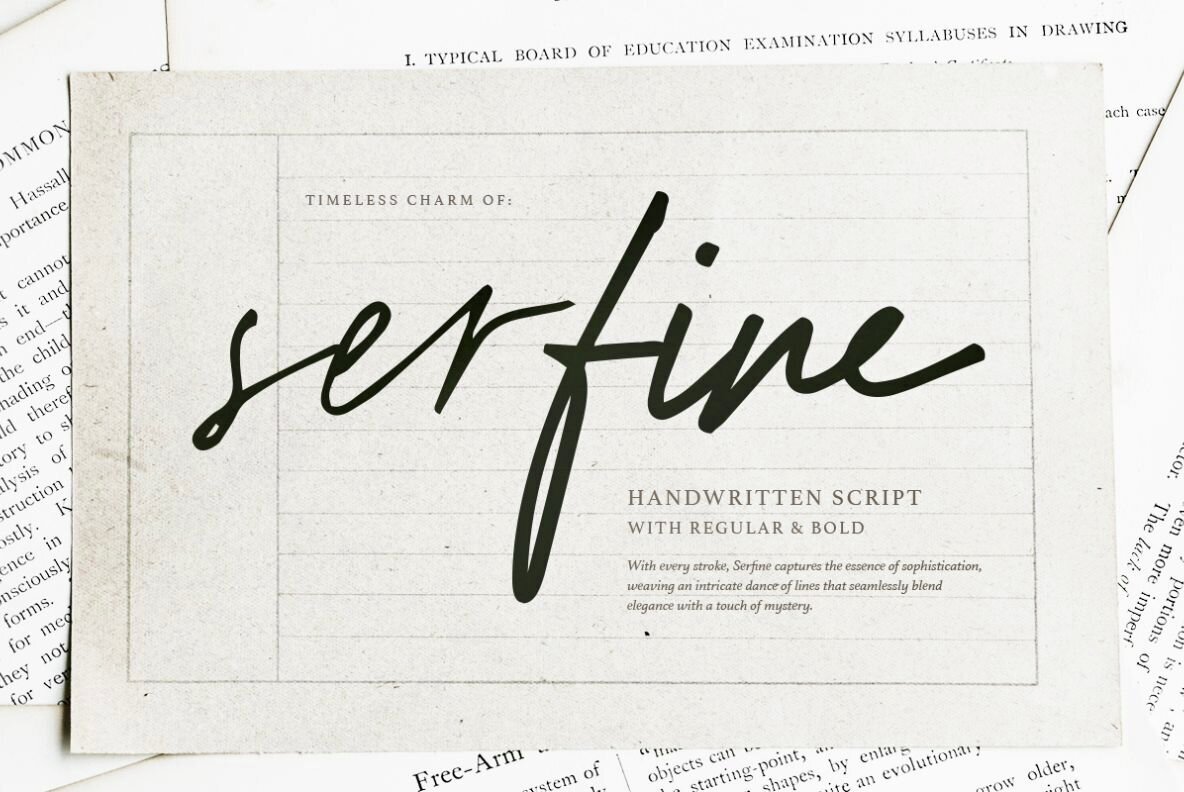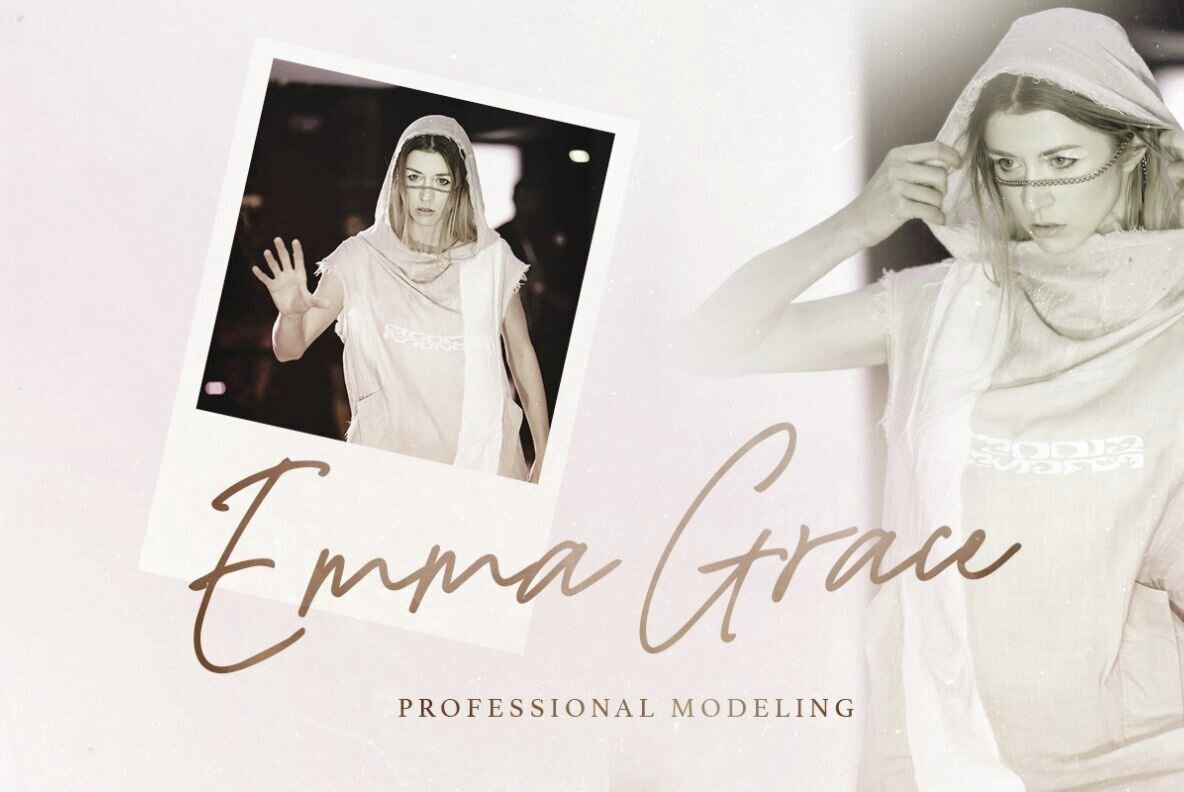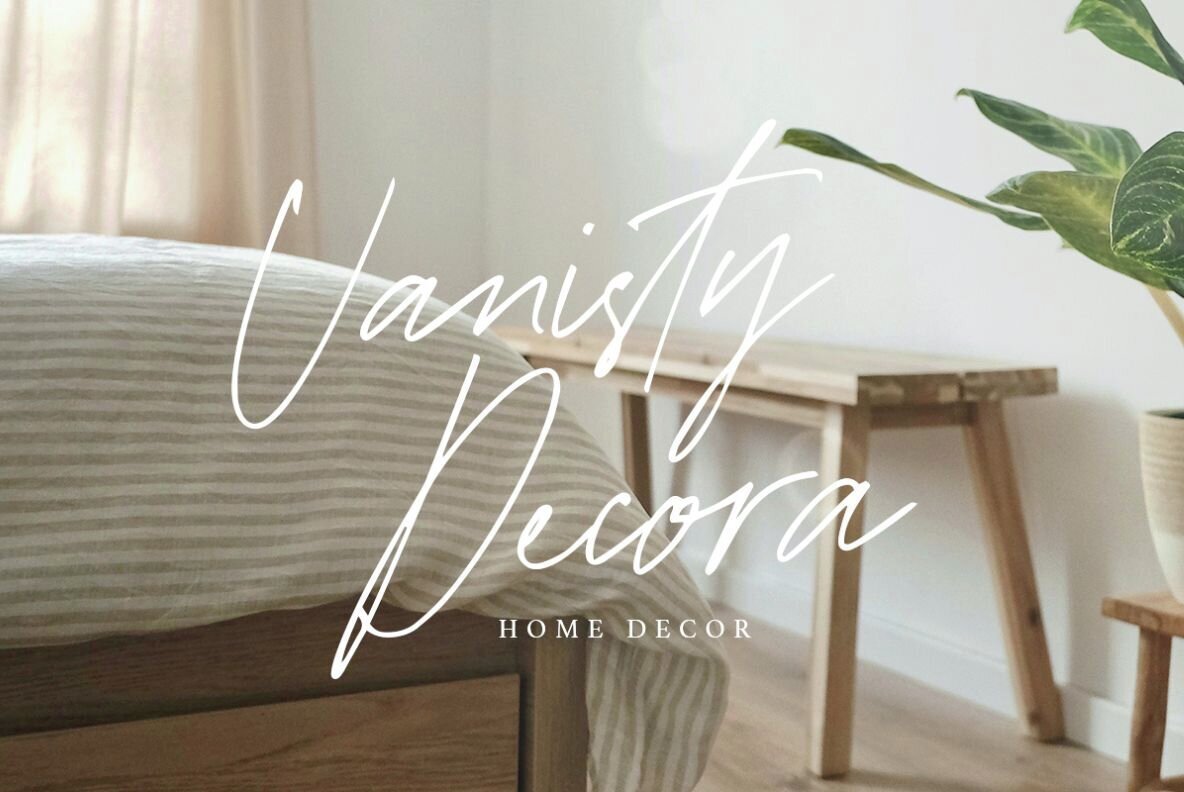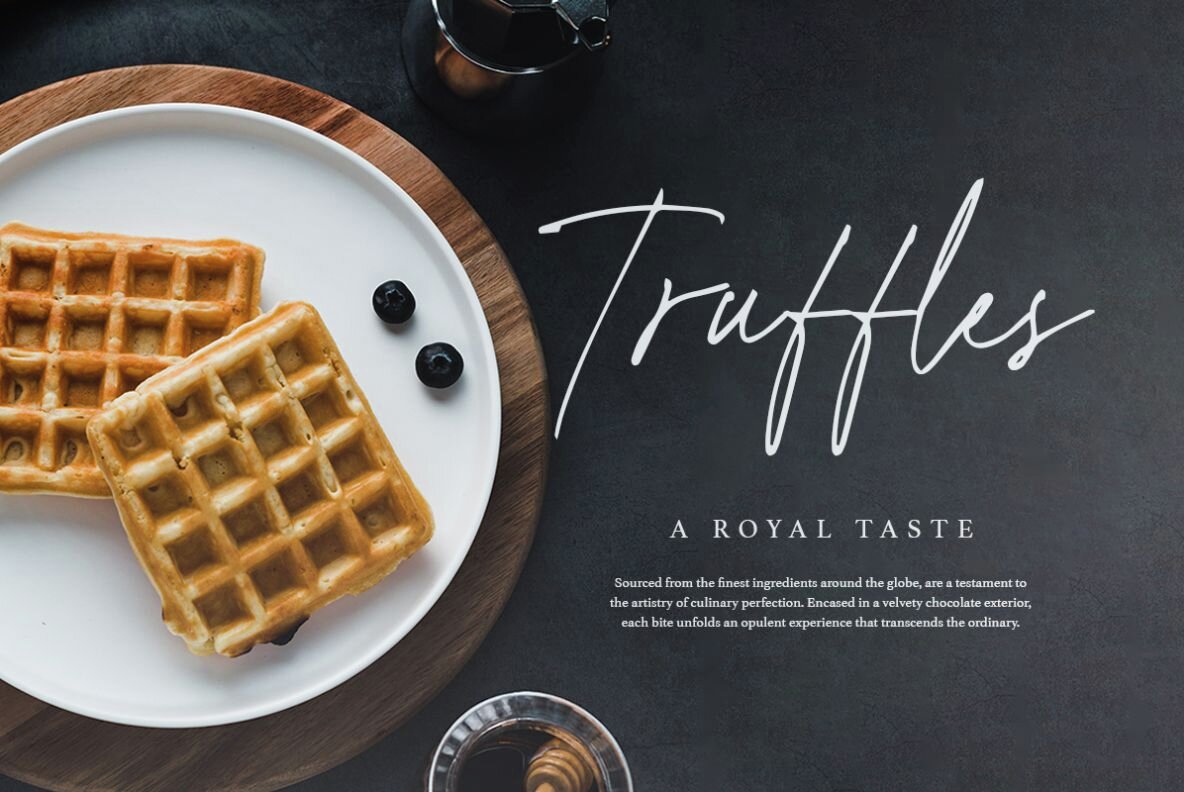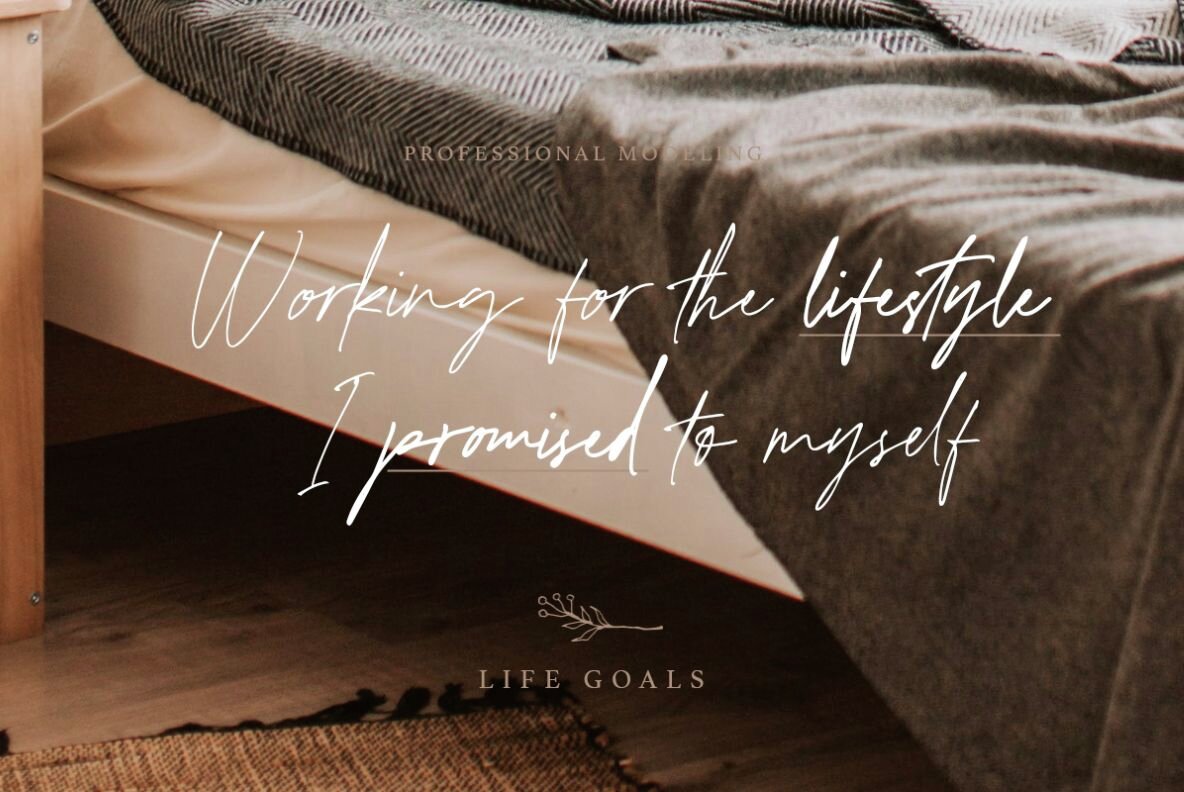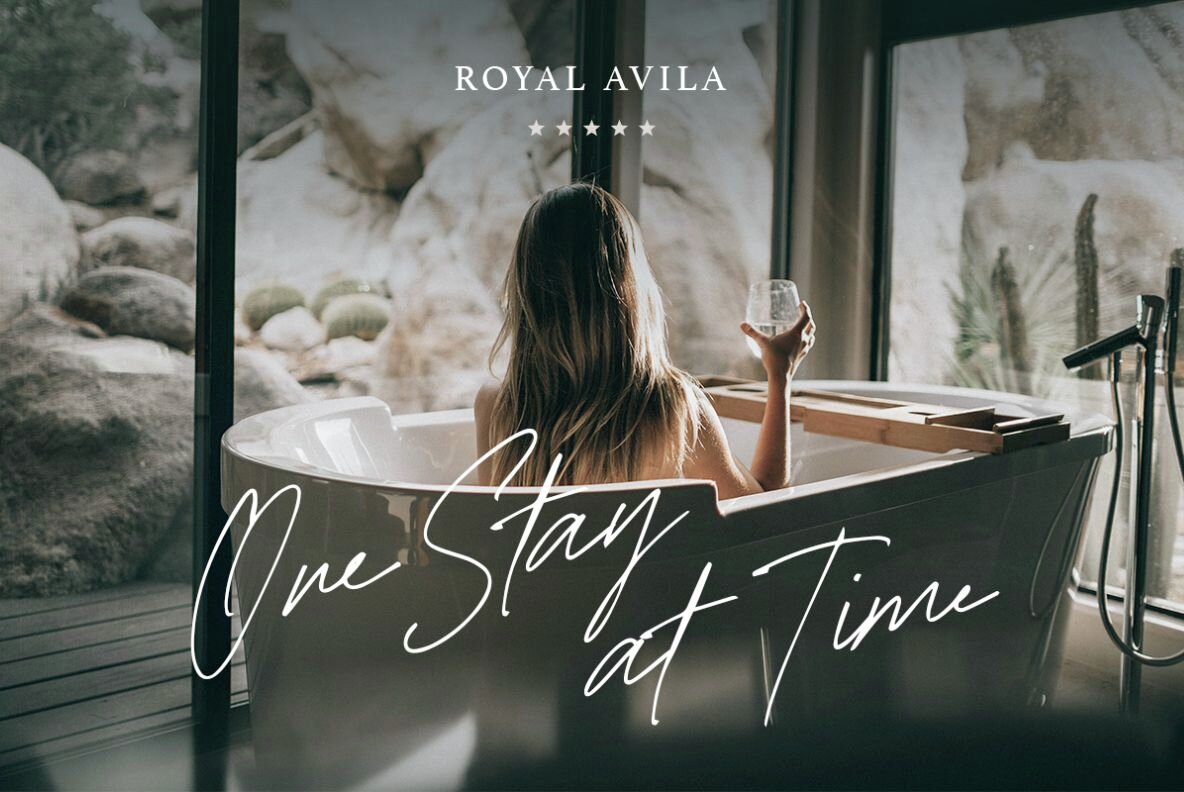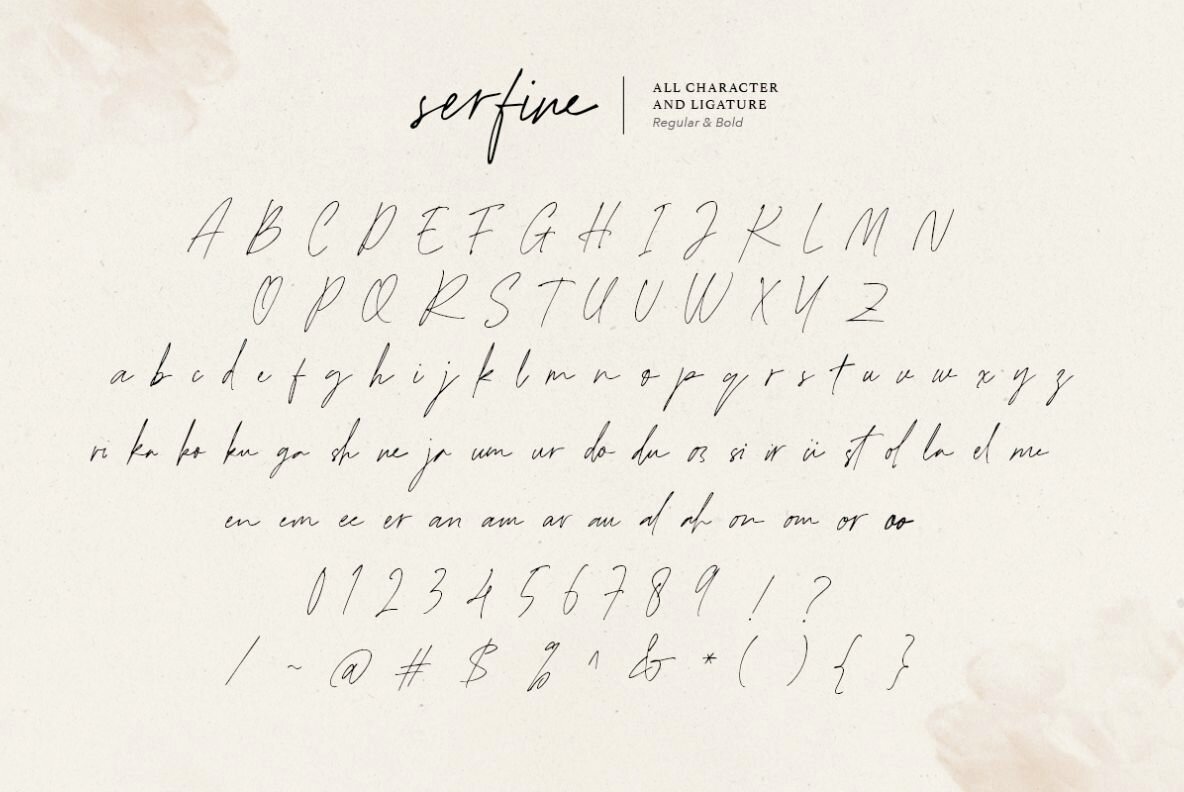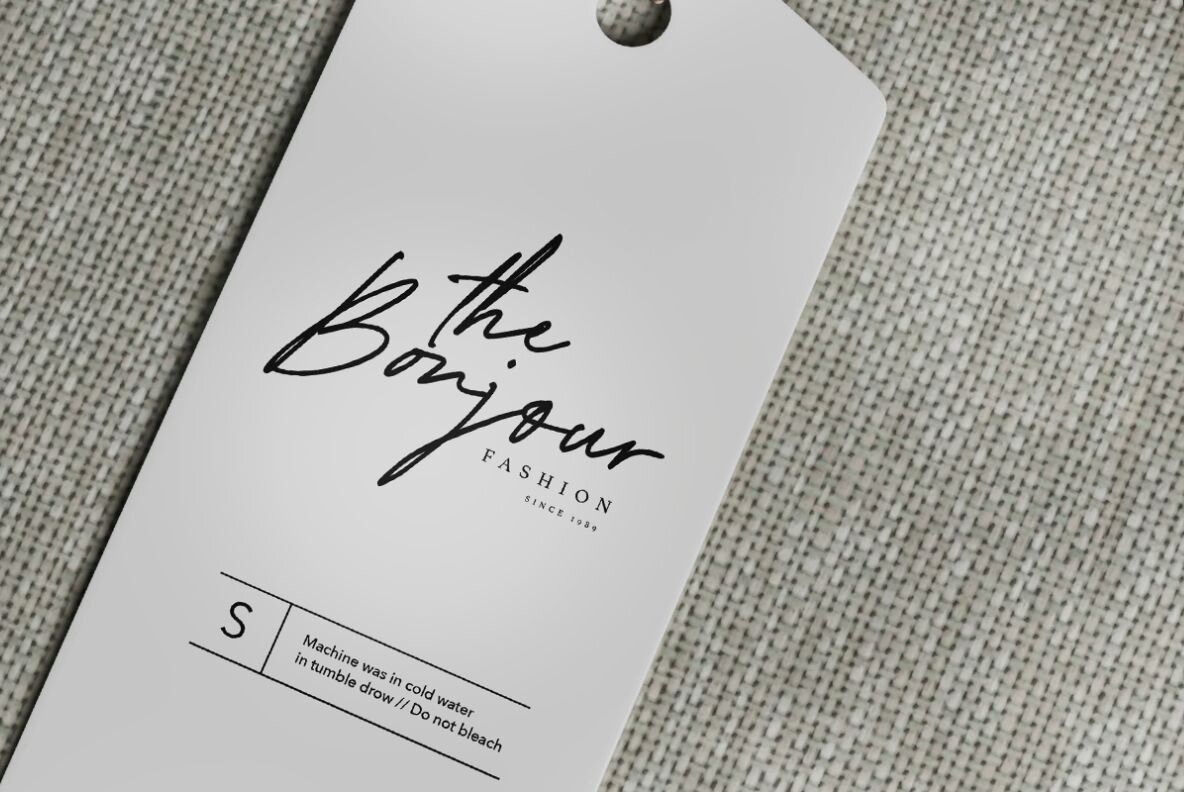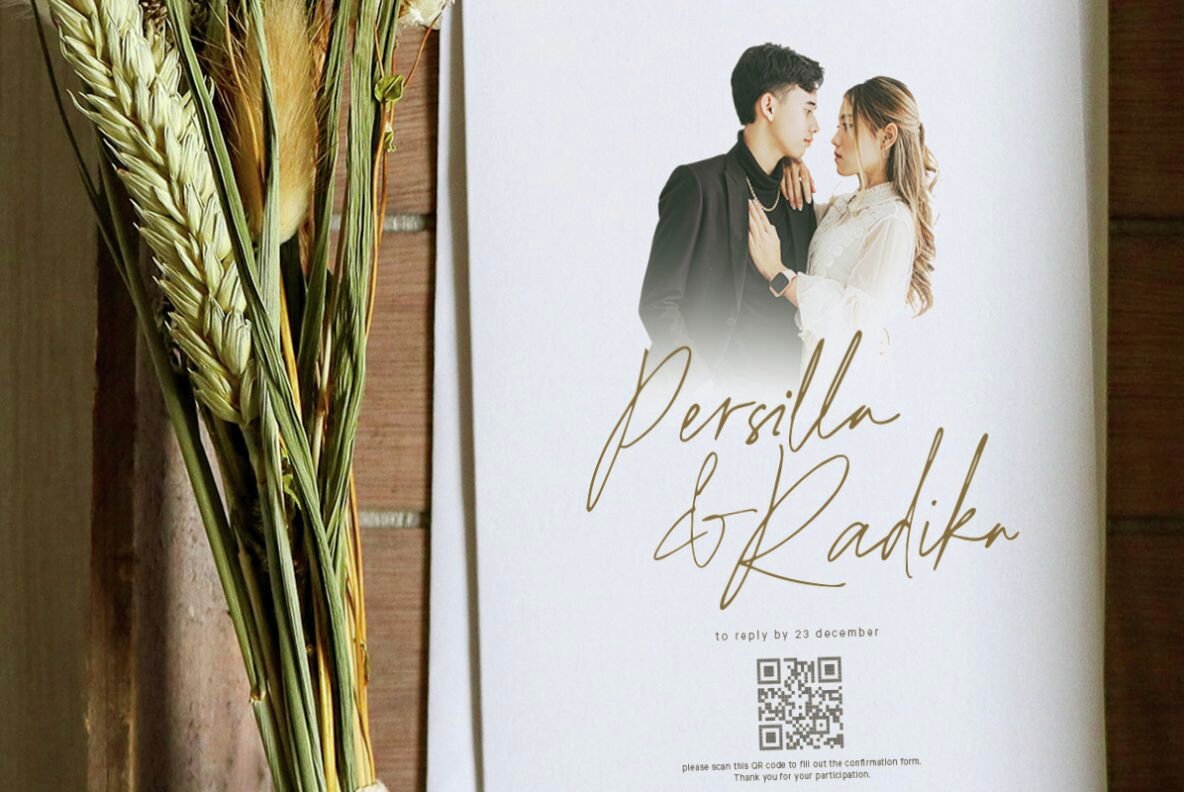
Serfine Font
Serfine Regular
Serfine Bold
Introducing Serfine – a signature script crafted with handwritten charm, featuring ligatures. Available in both Regular and Bold styles, you have the flexibility to choose the one that best suits your requirements. Whether it's for a digital signature, logo, branding, quotes, or to complement your sans or serif fonts, Serfine is versatile. Plus, it supports multiple languages for your convenience!